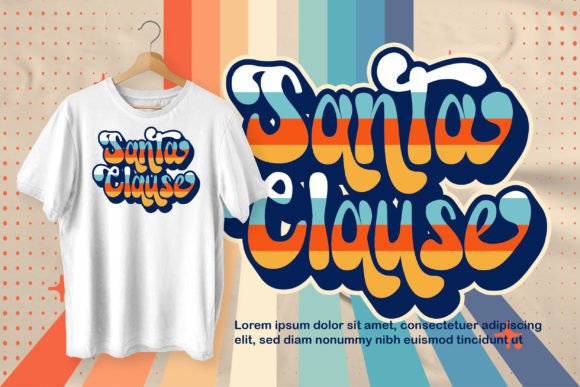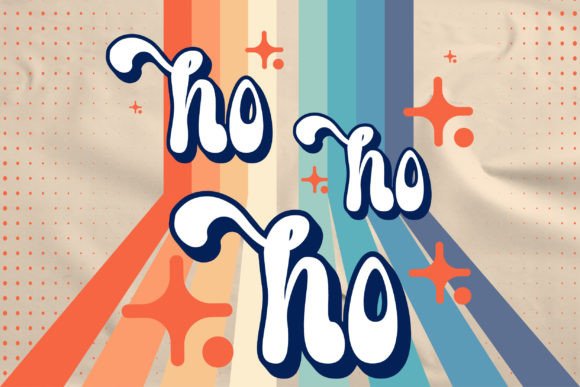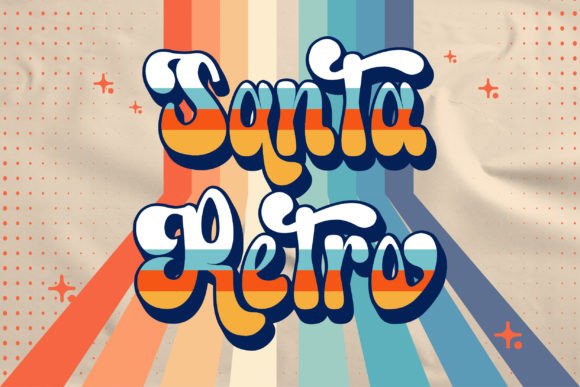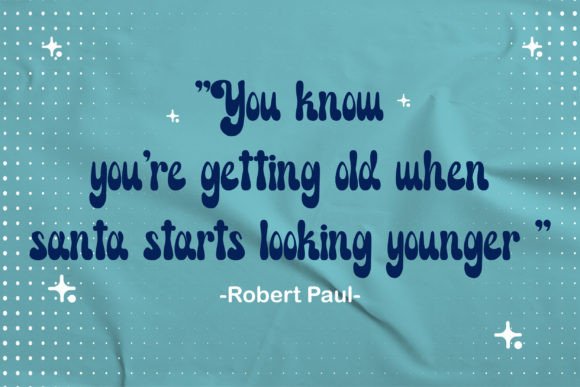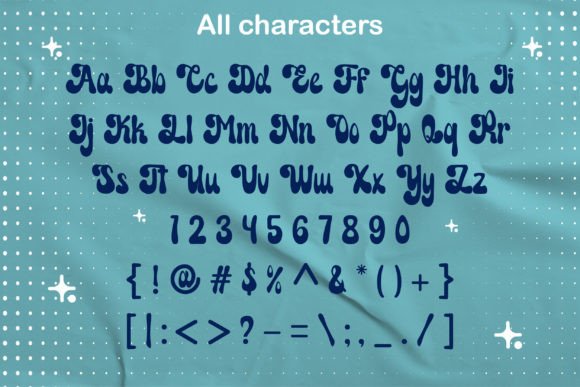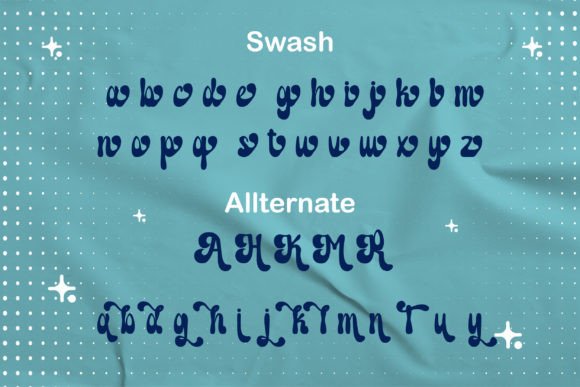
Introducing Christmas Santa Font: A Vintage Handwritten Font for Your Holiday Designs
Are you looking for a unique and festive font to add a touch of nostalgia to your holiday designs? Look no further than Christmas Santa Font, a cool vintage-style handwritten font that’s perfect for creating retro-inspired designs. In this article, we’ll take a closer look at this amazing font and explore its features, uses, and benefits for designers and crafters.
What is Christmas Santa Font?
Christmas Santa Font is a beautifully crafted handwritten font that’s designed to evoke the spirit of the holiday season. With its vintage style and charming aesthetic, this font is perfect for adding a touch of nostalgia and whimsy to any design. Whether you’re creating logos, branding materials, invitations, stationery, wedding designs, social media posts, or more, Christmas Santa Font is the perfect choice.
Key Features of Christmas Santa Font
- Vintage Style: Christmas Santa Font features a unique vintage style that’s reminiscent of classic holiday designs from the past.
- Handwritten Aesthetic: This font has a charming handwritten aesthetic that’s perfect for adding a personal touch to your designs.
- Versatile: This font is versatile and can be used for a wide range of design projects, from logos and branding to invitations and social media posts.
Uses for Christmas Santa Font
Christmas Santa Font is a versatile font that can be used for a wide range of design projects, including:
- Logos and Branding: Use Christmas Santa Font to create unique and memorable logos and branding materials for your business or personal projects.
- Invitations and Stationery: Add a touch of vintage charm to your invitations, stationery, and greeting cards with this beautiful font.
- Wedding Designs: Christmas Santa Font is perfect for creating romantic and whimsical wedding designs, including invitations, programs, and decorations.
- Social Media Posts: Use this font to create eye-catching and festive social media posts that will stand out from the crowd.
Benefits of Using Christmas Santa Font
There are many benefits to using Christmas Santa Font in your designs, including:
- Unique and Memorable: This font is unique and memorable, making it perfect for creating designs that stand out from the crowd.
- Versatile: This font is versatile and can be used for a wide range of design projects, making it a great addition to any designer’s toolkit.
- High-Quality: Christmas Santa Font is a high-quality font that’s designed to deliver exceptional results, even at small sizes.
Tips for Using Christmas Santa Font
Here are a few tips for using Christmas Santa Font in your designs:
- Experiment with Sizes: Try using Christmas Santa Font in different sizes to create visual interest and hierarchy in your designs.
- Pair with Other Fonts: Experiment with pairing Christmas Santa Font with other fonts to create unique and interesting combinations.
- Use Swashes and Glyphs: Take advantage of the PUA encoding in Christmas Santa Font to access swashes and glyphs that can add extra flair to your designs.
| Font Name | Christmas Santa Font |
| Author | Patlot Digital.Studio |
Christmas Santa Font is a unique and versatile font that’s perfect for adding a touch of vintage charm to your holiday designs. With its PUA encoding, handwritten aesthetic, and wide range of uses, this font is a great addition to any designer’s toolkit. Whether you’re creating logos, branding materials, invitations, or social media posts, Christmas Santa Font is the perfect choice. So why wait? Download Christmas Santa Font today and start creating your own retro-inspired holiday designs!